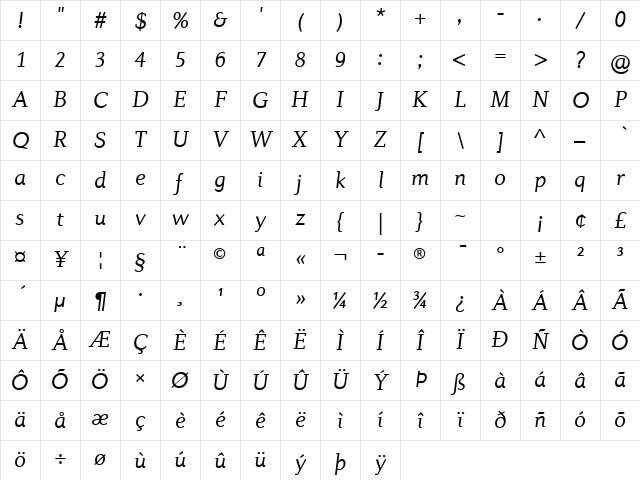
Diverda Serif Com Light Italic
Designer: Daniel Lanz
Design Context for Diverda Serif Com
Diverda Serif Com carries the refined structure of traditional serif typography, with bracketed terminals and considered proportions that communicate credibility and craft. The slanted form adds forward momentum and visual energy. Its slender proportions lend an understated elegance to any composition.